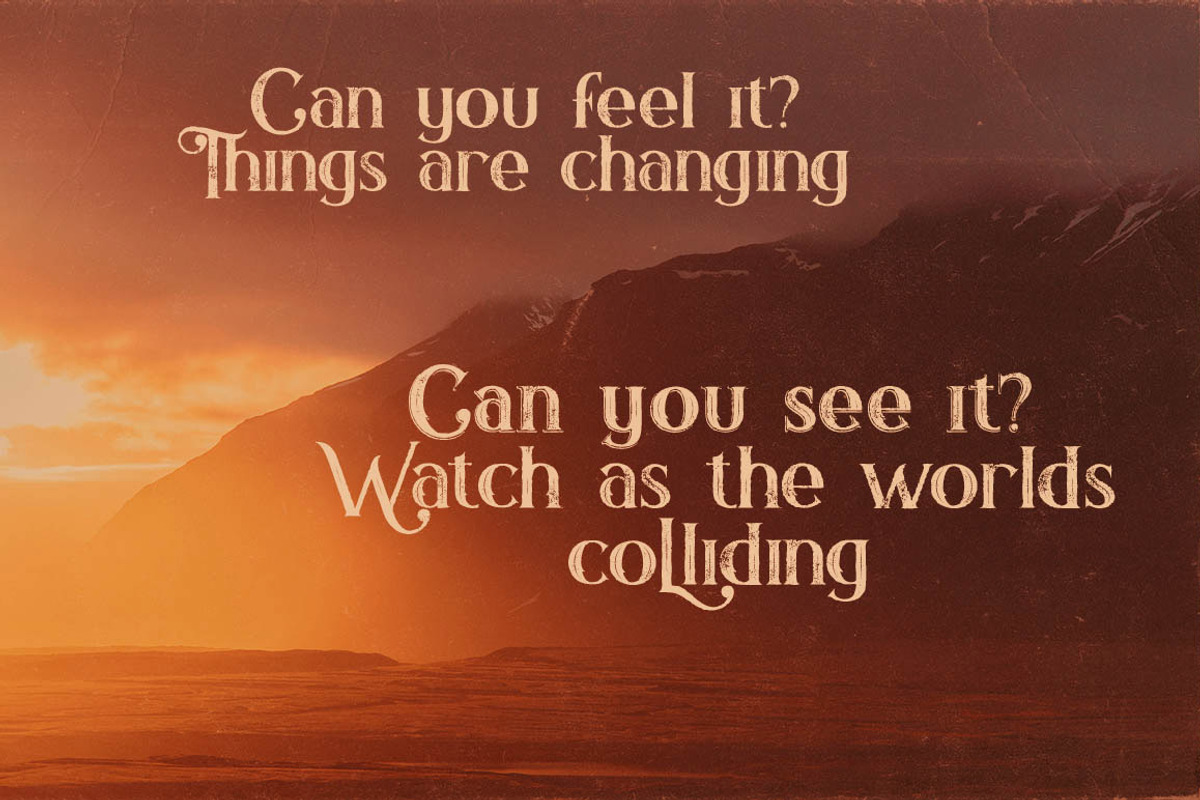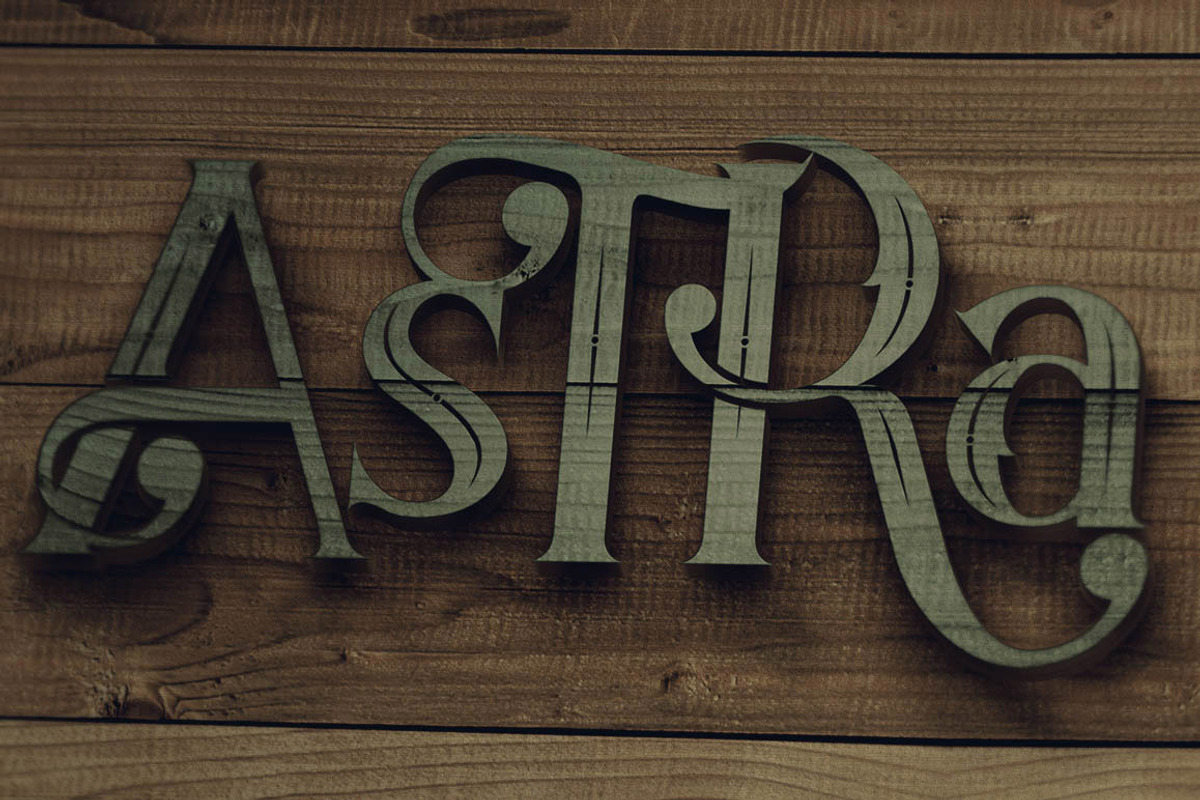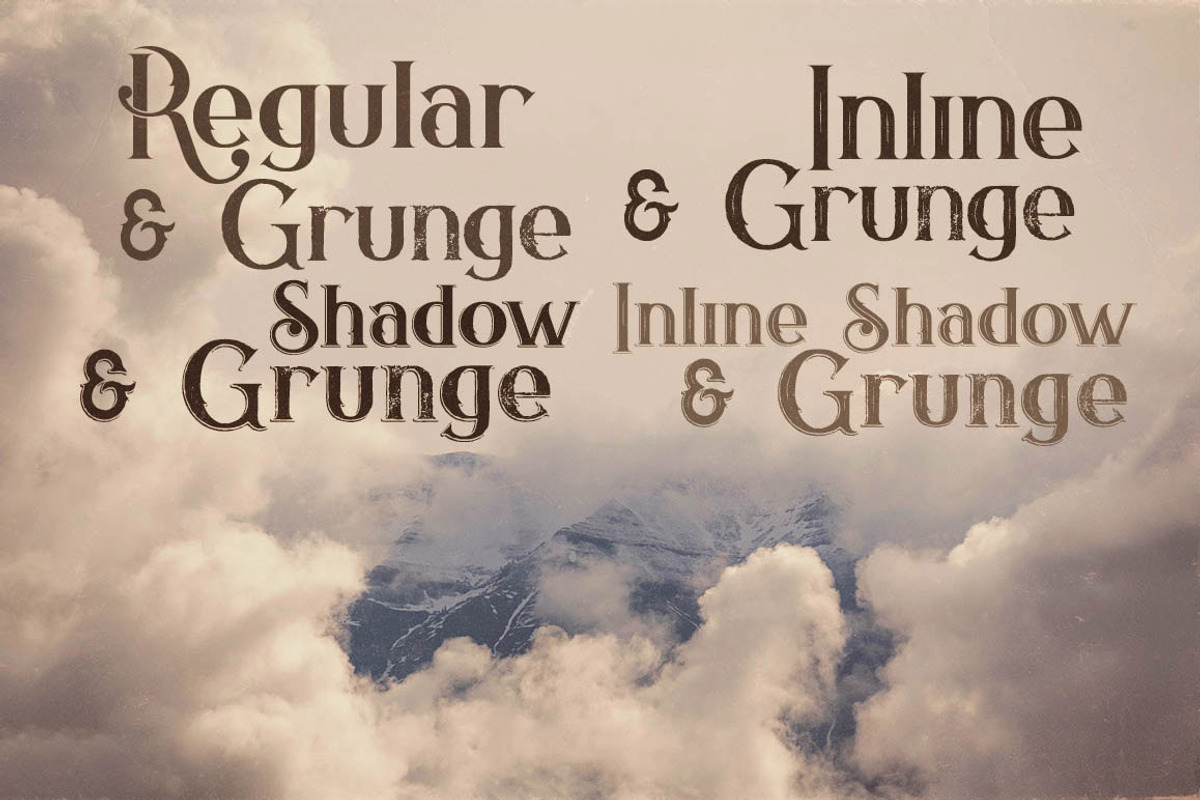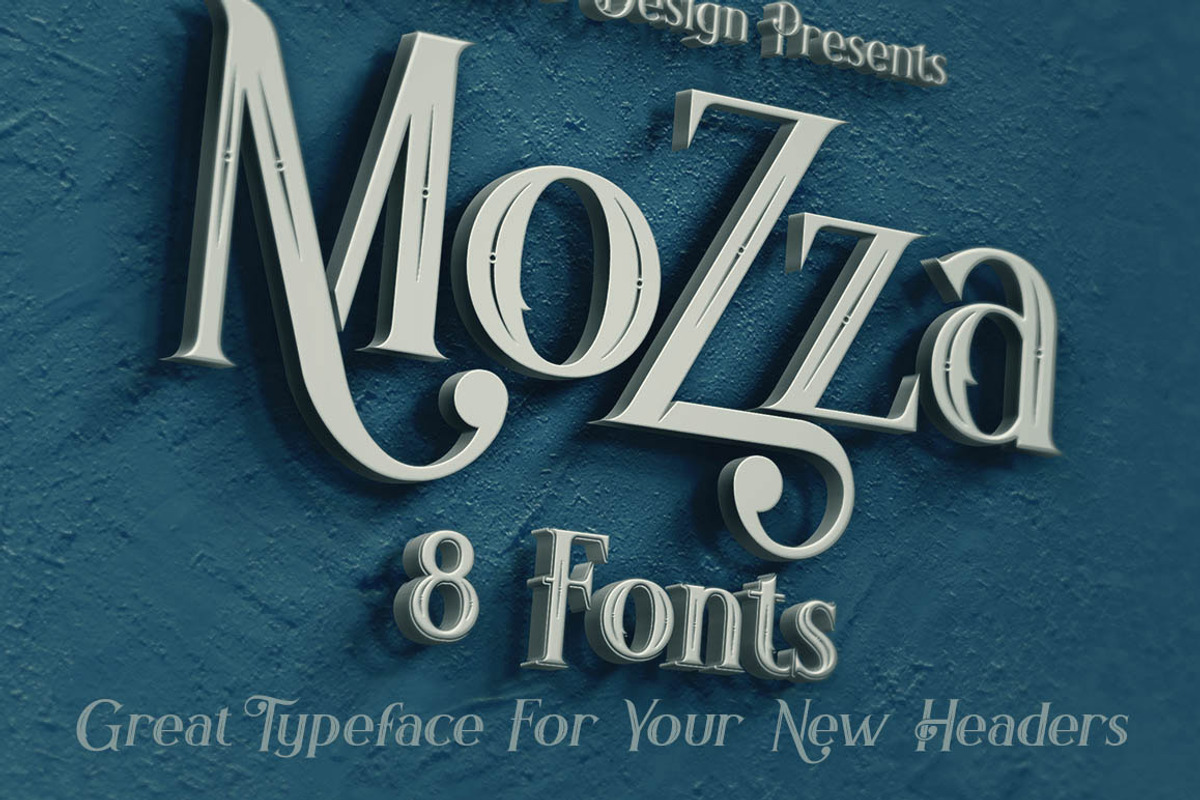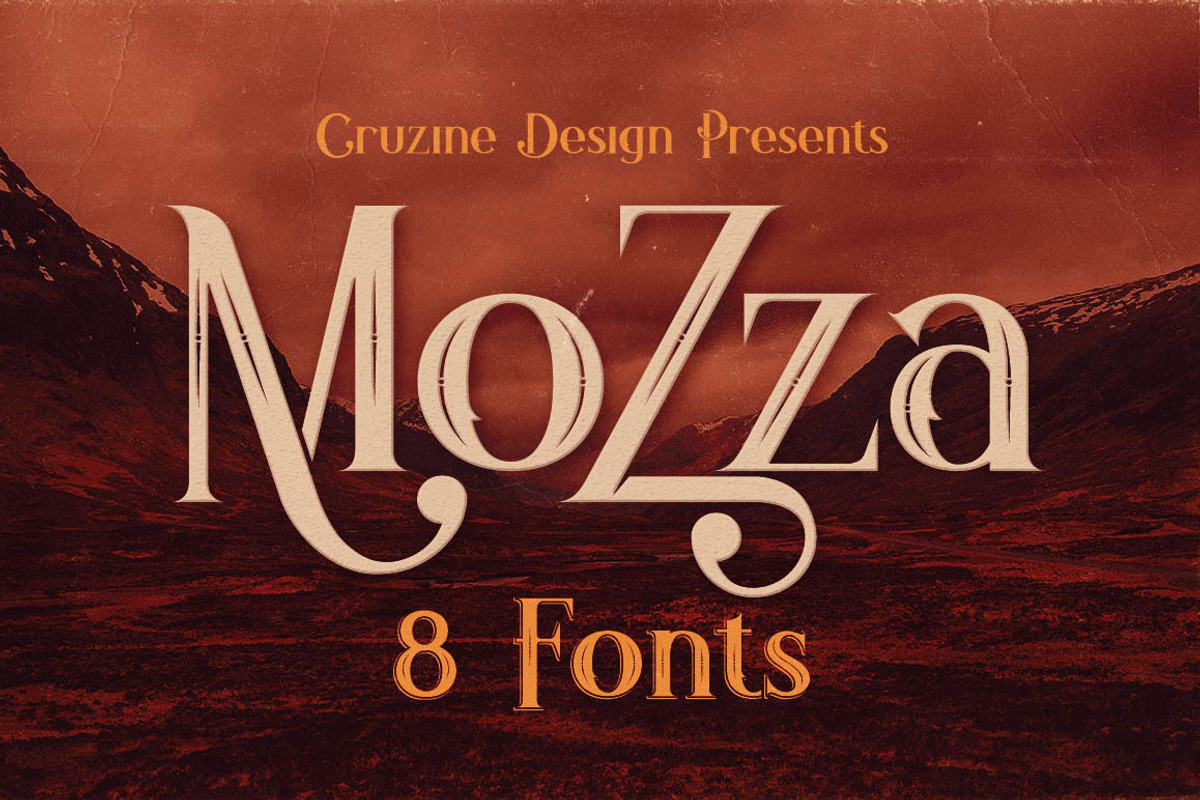
Mozza Typeface
Mozza Typeface by Cruzine is a font selected for branding, posters, packaging, typography.
Why Mozza Typeface is worth a look
Mozza Typeface by Cruzine fits naturally into Branding, posters, packaging, typography.